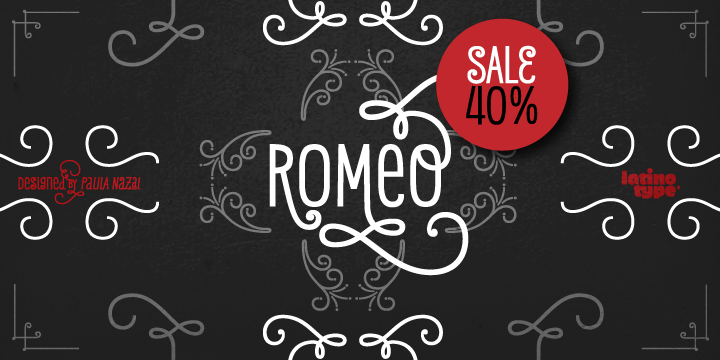
Romeo Font
Romeo
Romeo is a typeface created by Paula Nazal Selaive and published by Latinotype that is inspired by romanticism and it matches perfectly with Julieta.
Foundry: Latinotype